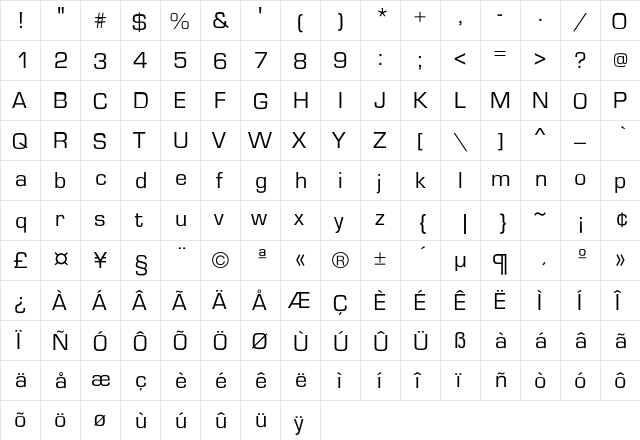
Continental-Roman Regular
Design Context for Continental-Roman Typeface
Continental-Roman offers clean, dependable letterforms without strong stylistic allegiance, making it a practical choice for designers who need flexibility.